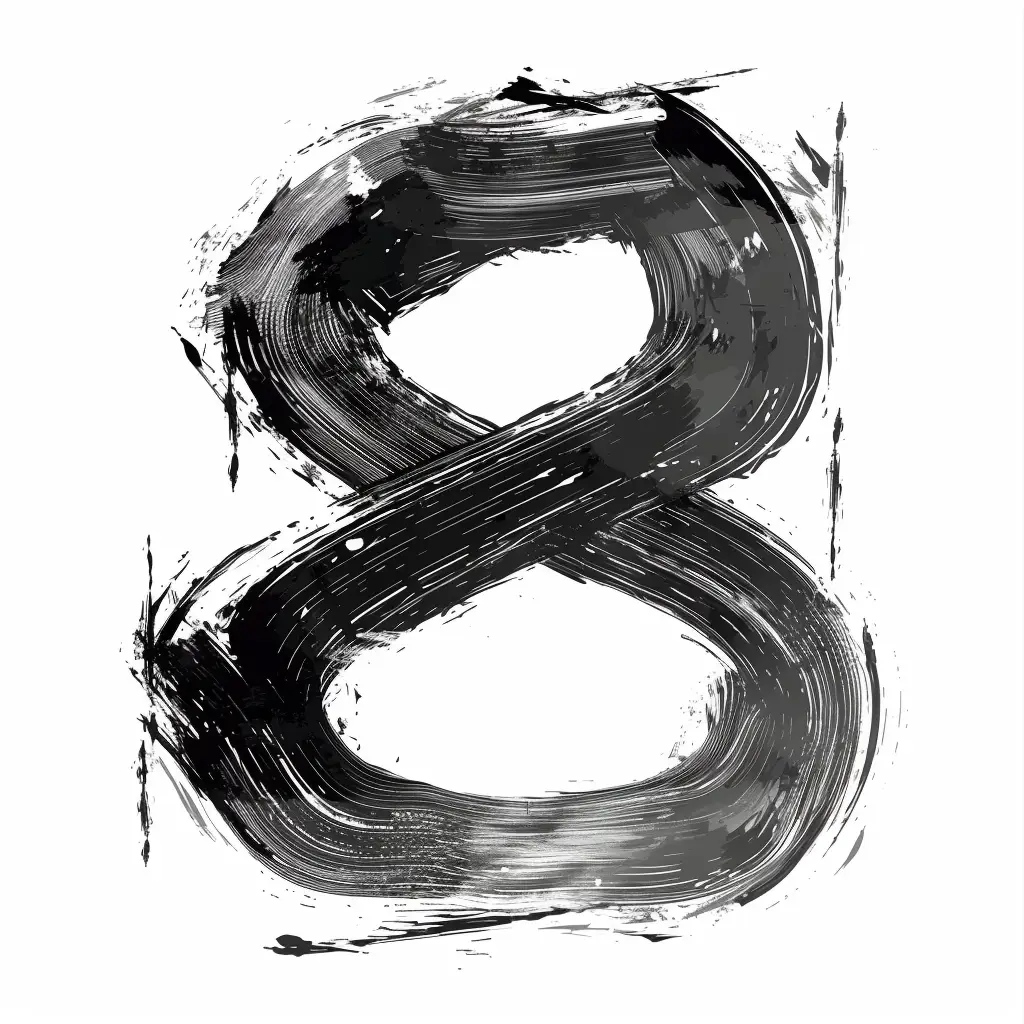
The image features a stylized, hand-painted number "8" rendered in bold black brushstrokes against a plain white background. The design has a textured, grungy aesthetic with visible brush marks, uneven edges, and splatters, giving it an artistic, expressive feel. The contrast between the dark, dynamic strokes and the light backdrop emphasizes the number’s form, blending calligraphic flair with a raw, painterly style.